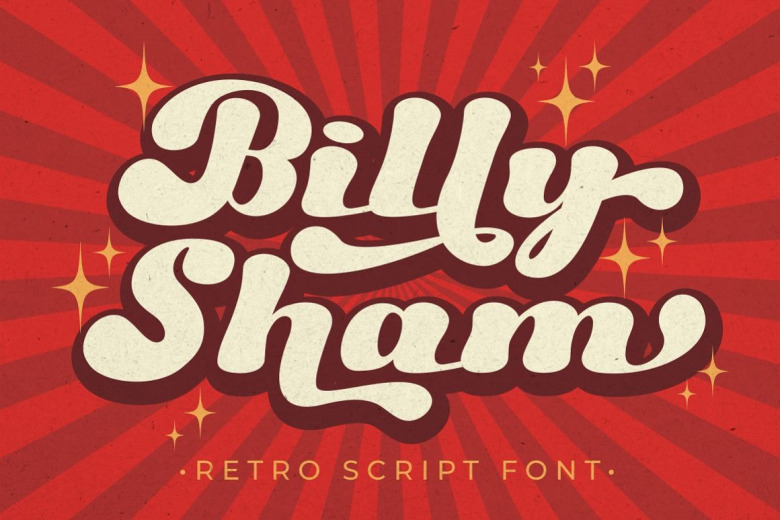
Billy Sham Font
Say hello to a new retro font “Billy Sham“. Retro typography and lettering from the 70’s and 80’s with a bit of more classy style, like bold typography. ext 534 glyphs and 359 alternates, you have a huge pallet to combine lettering for all types of signs. They also come with an open type feature (consist a lot of alternates and end swash), obviously, it’ll make great lettering too.
Billy Sham Retro Script Font